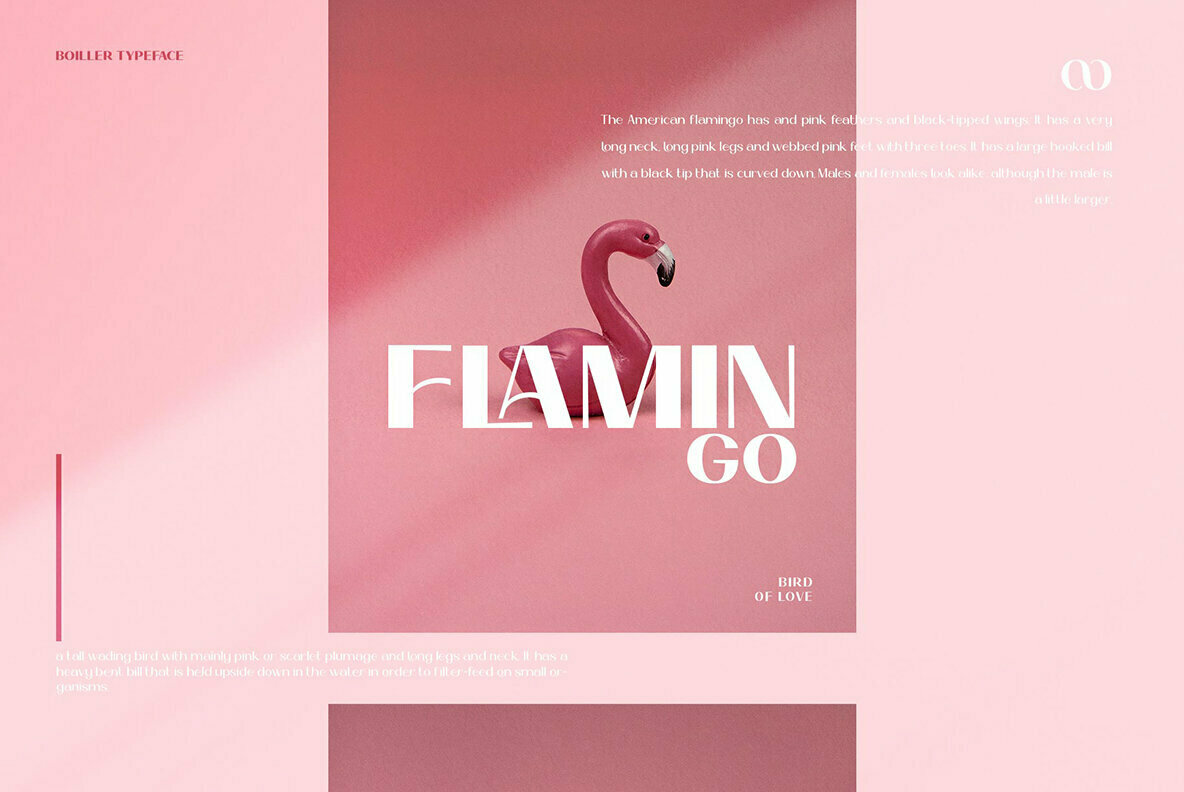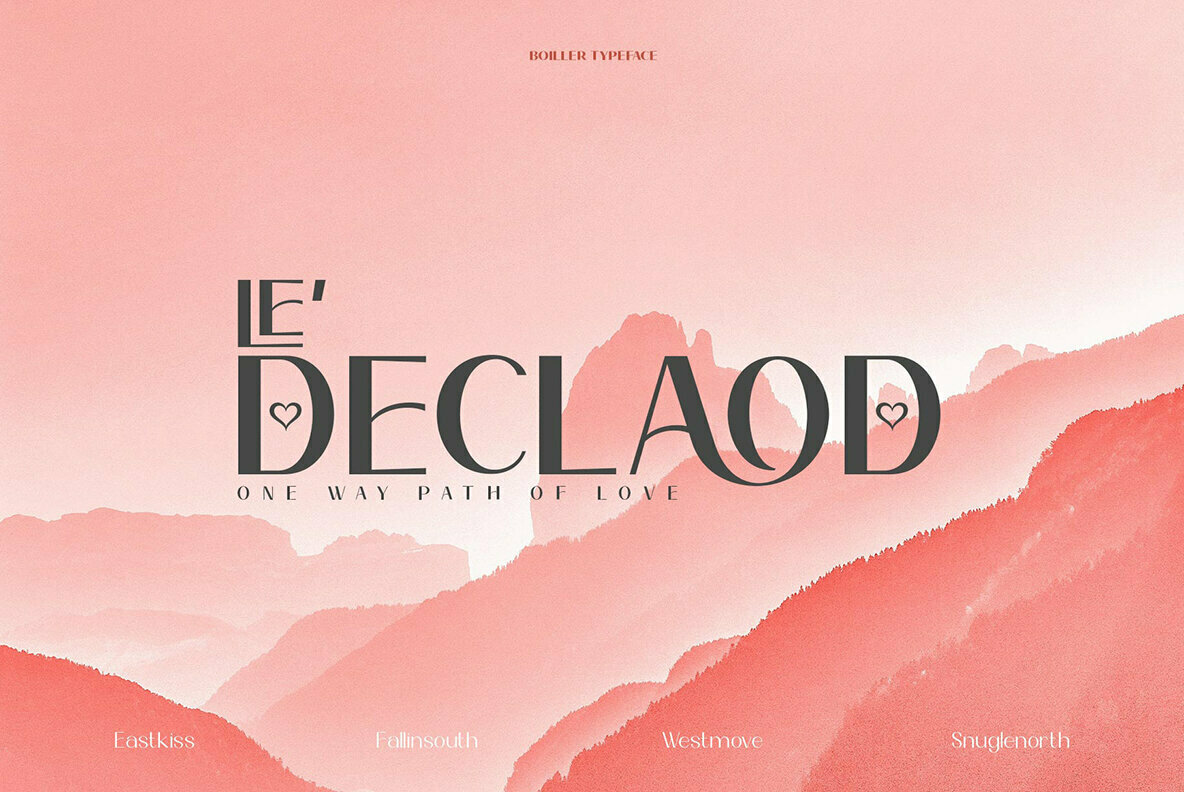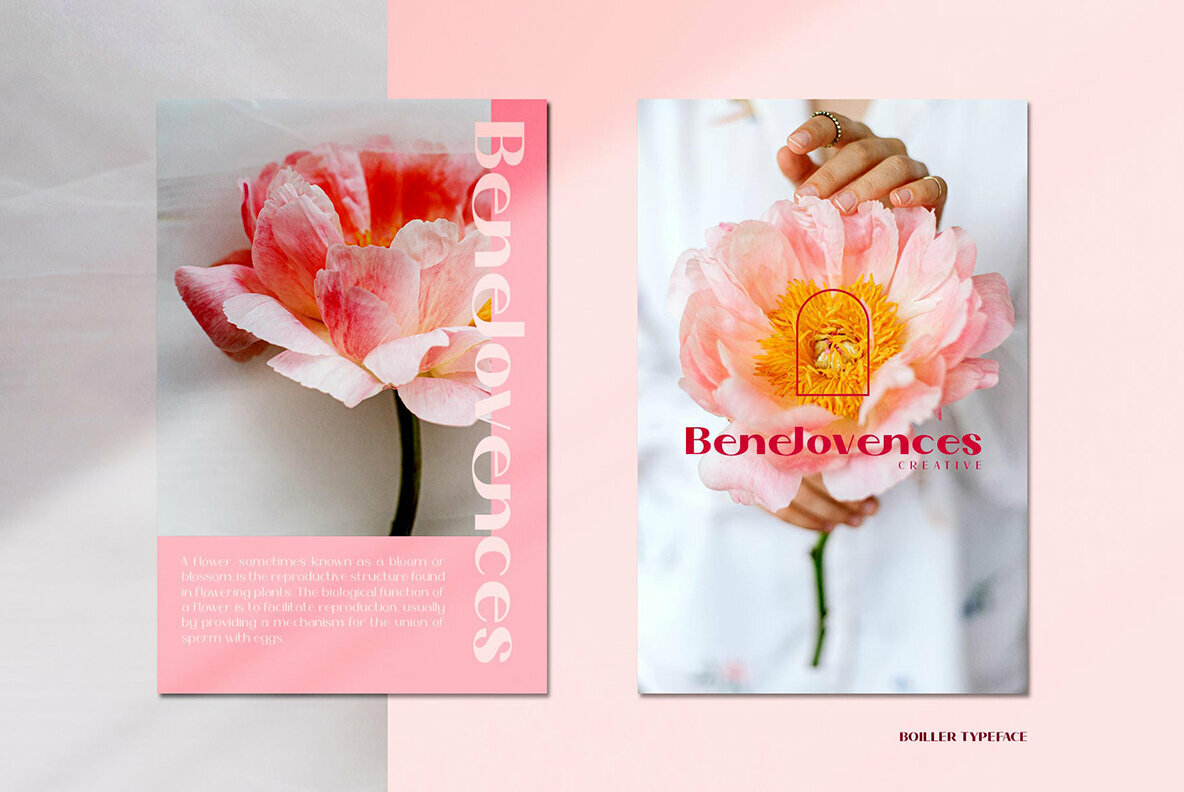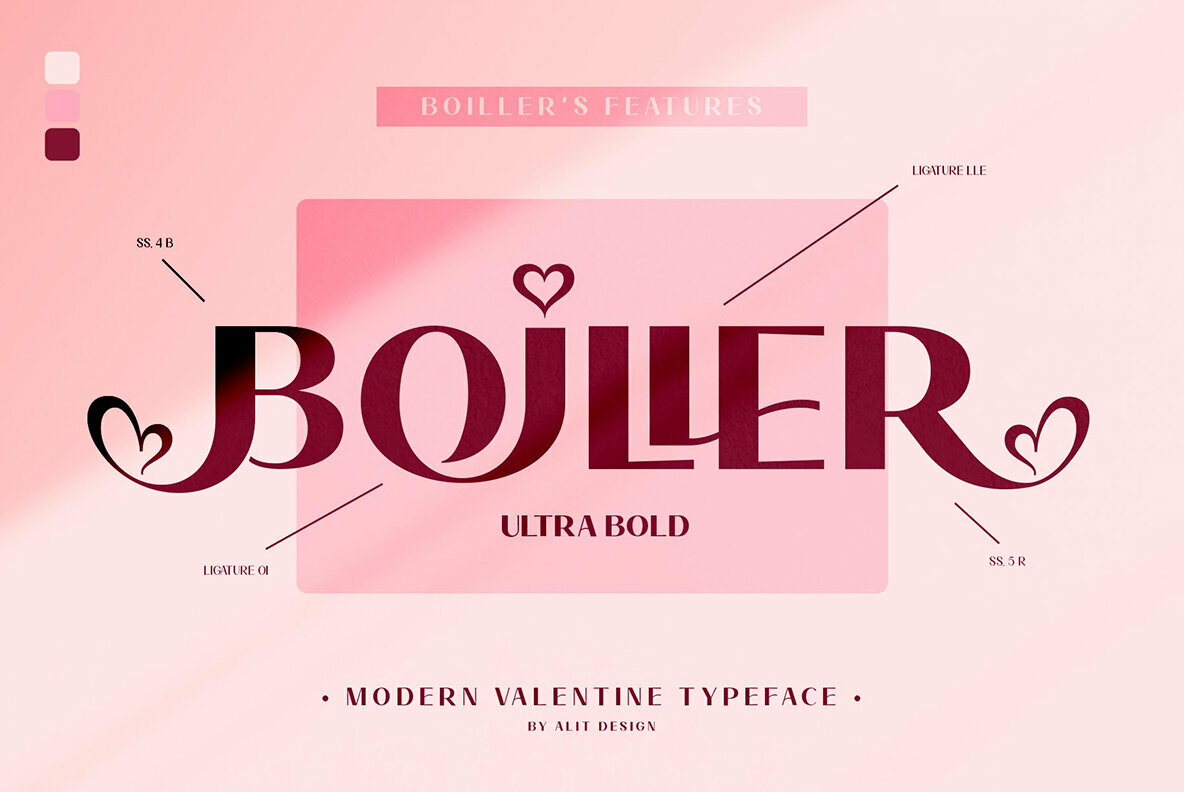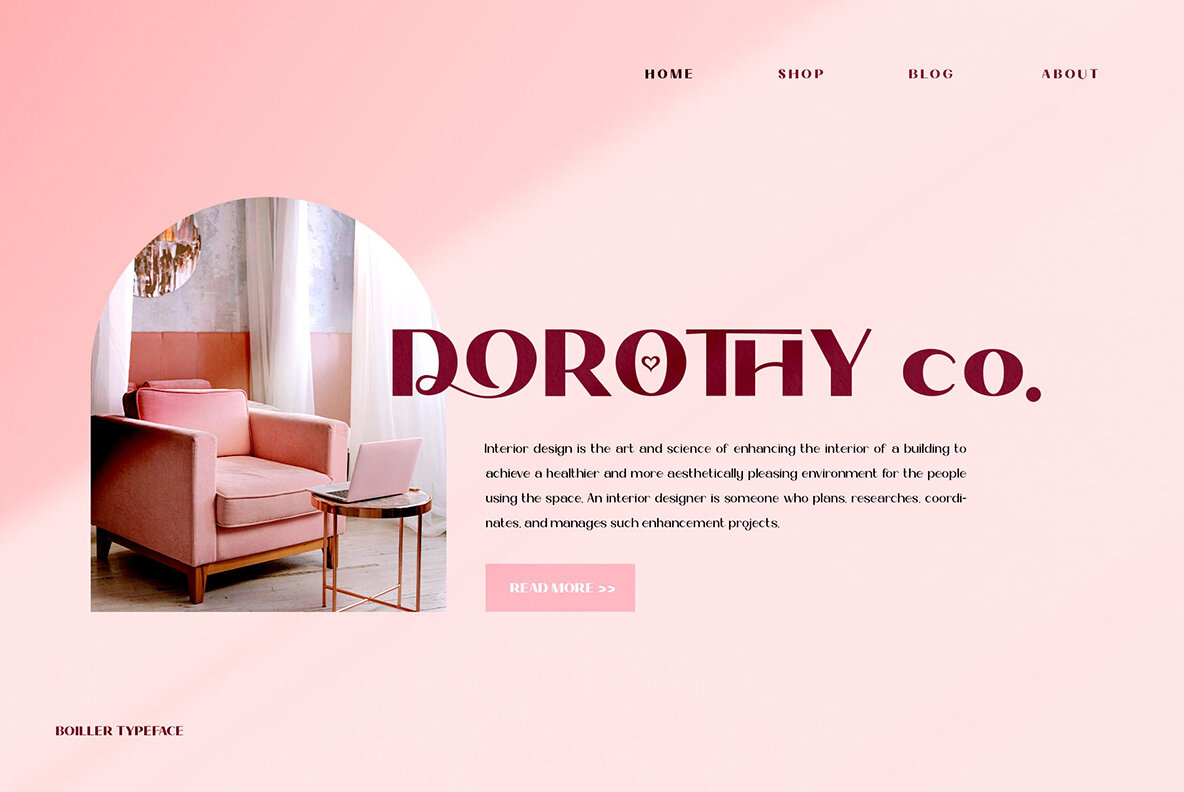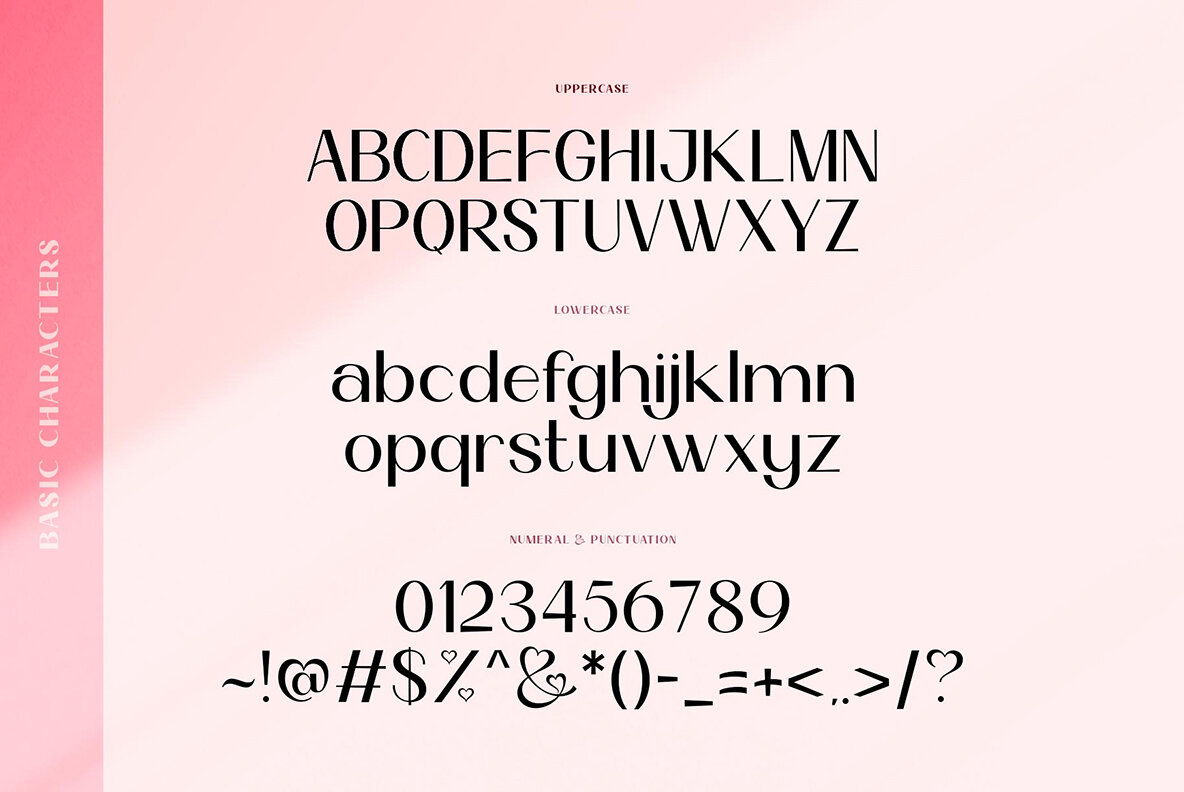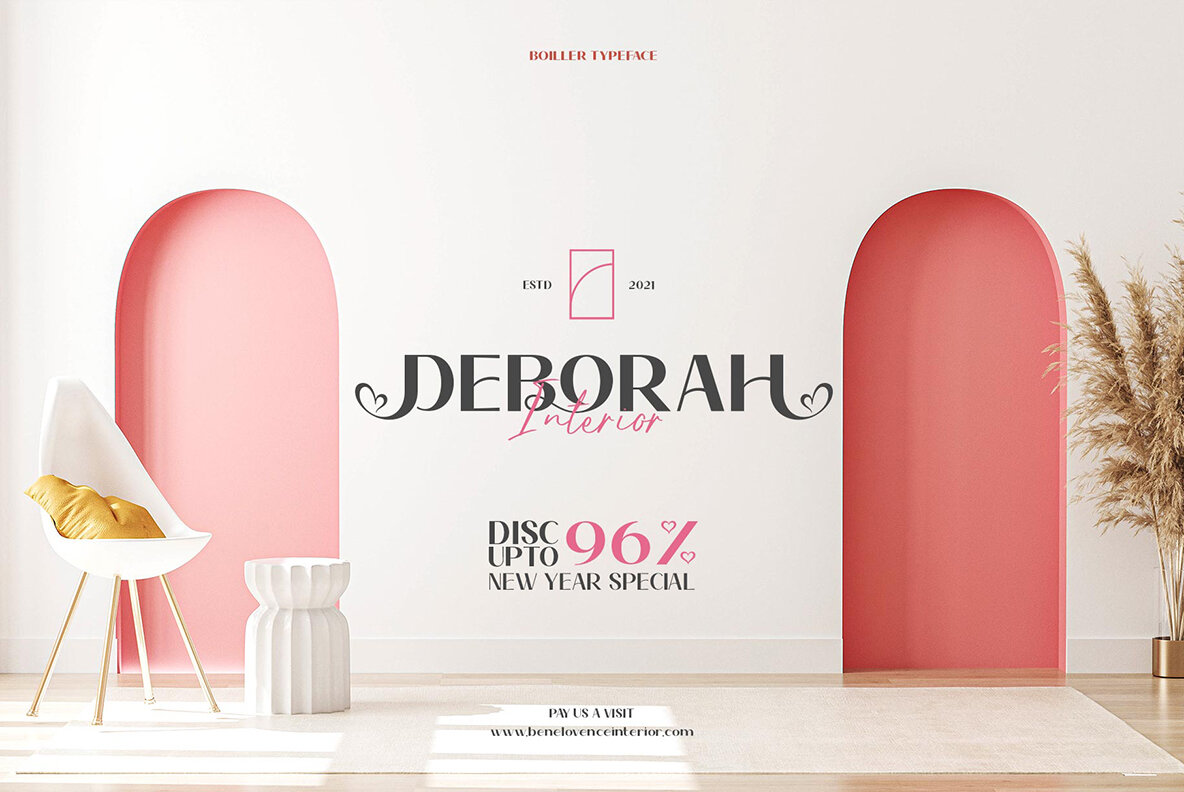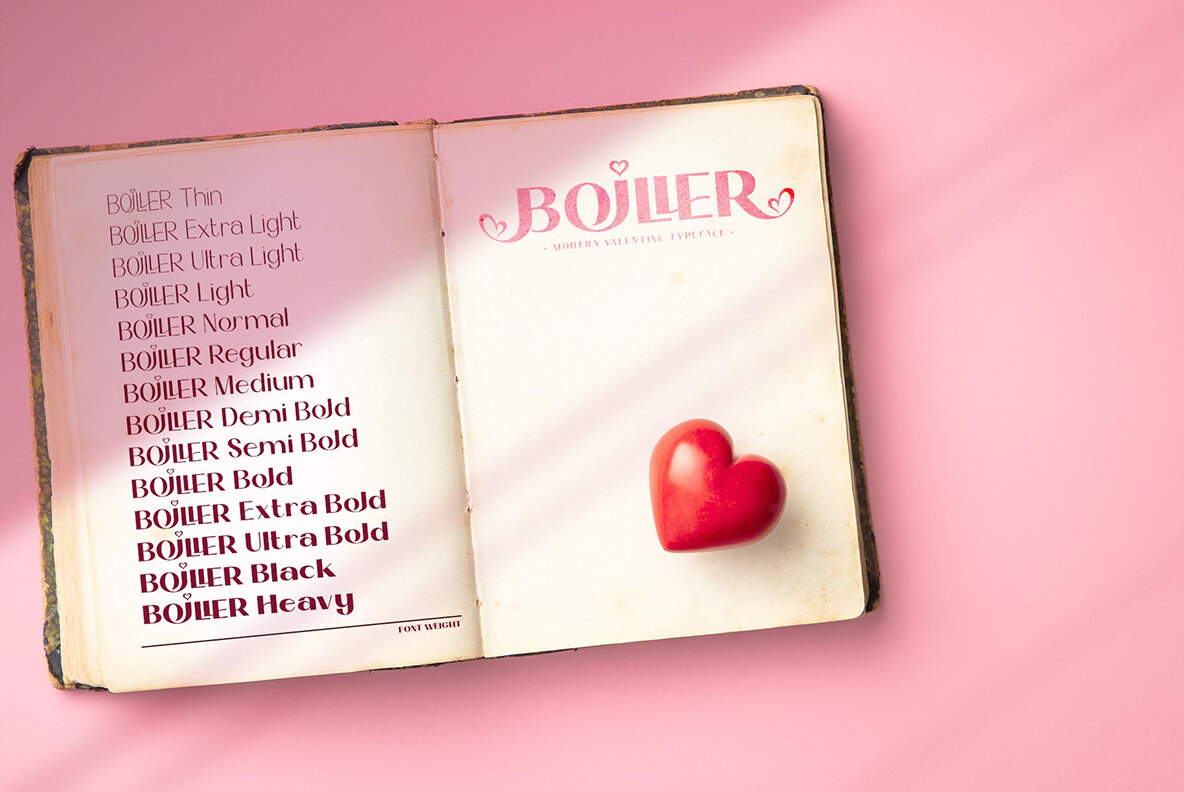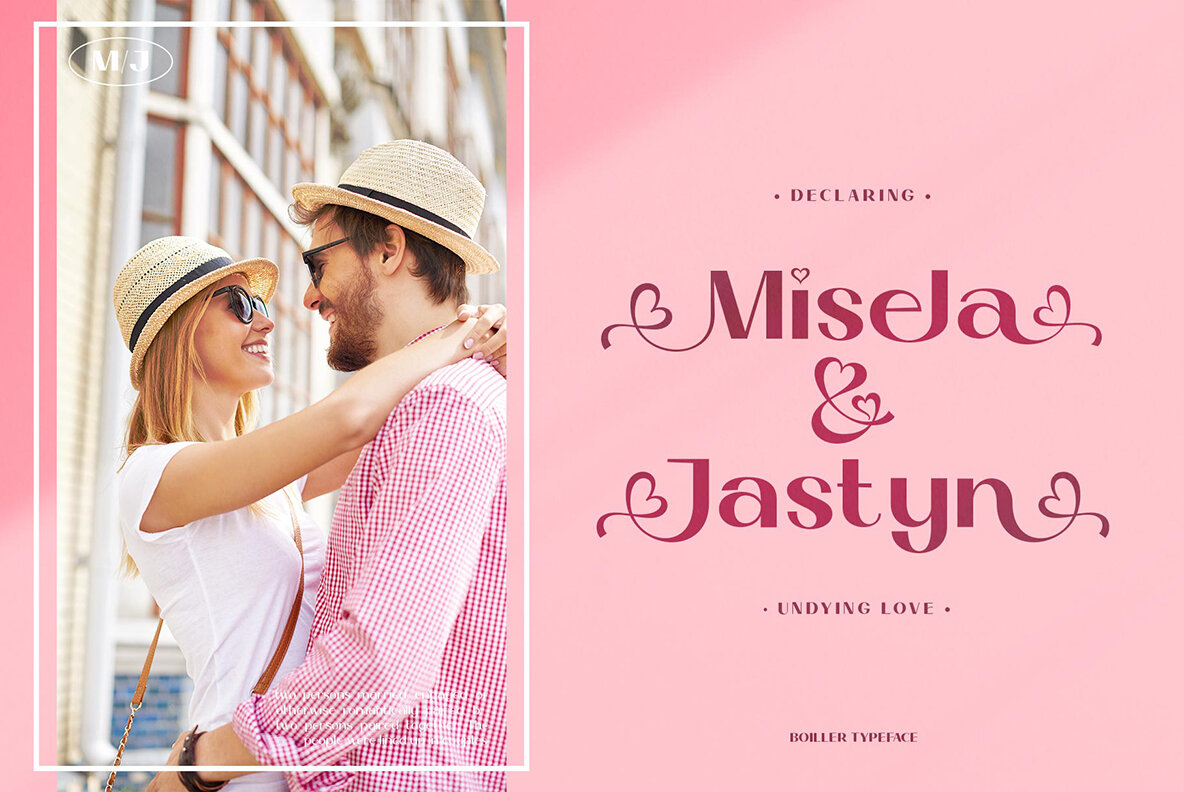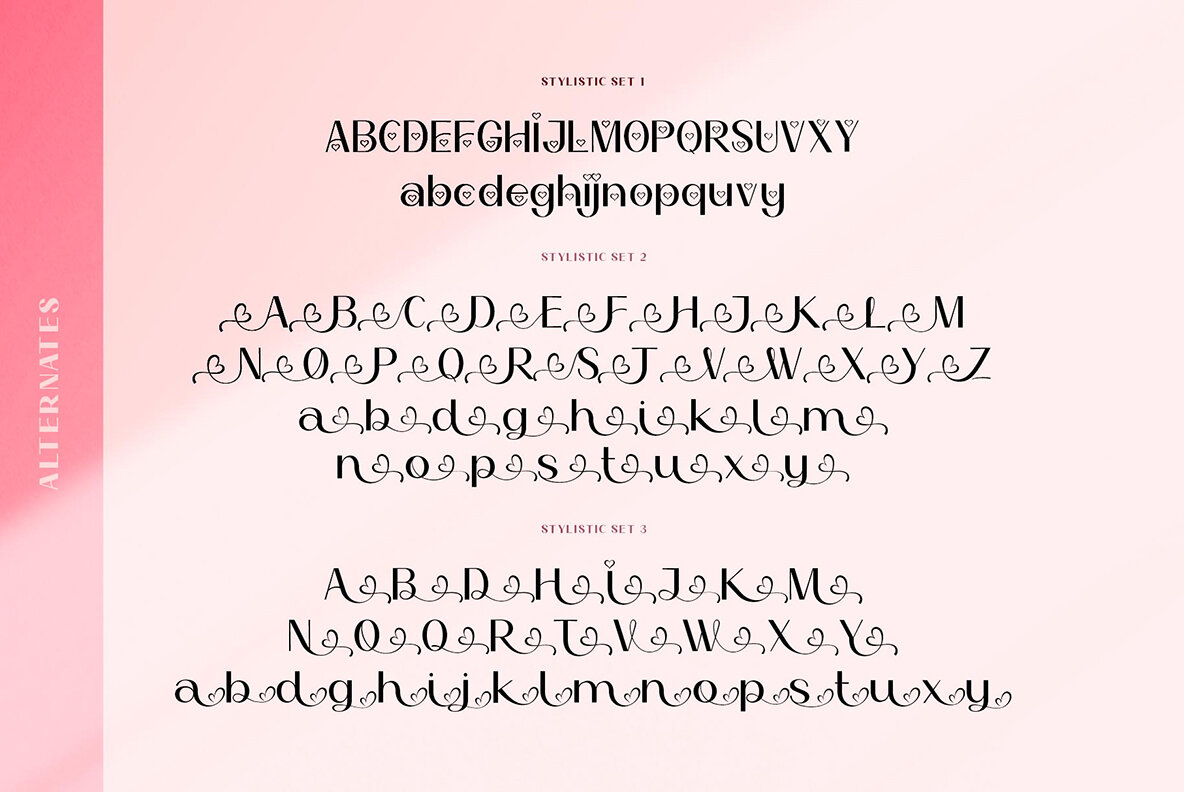
Boiller Font
Boiller is a sans serif font designed to bring elegance and romance to a variety of design projects. With 736 glyphs, it offers a rich palette of alternative characters, including swashes and ligatures. Boiller's capability to support multilingual projects makes it versatile for global use. The font family includes 14 styles, ranging from Thin to Heavy, adapting seamlessly from body text to header text, ensuring consistency and cohesion across your design pieces.Boiller: An Elegant Sans Serif with a Romantic Flair
Embrace Boiller for its flexibility and ability to enhance both simple and sophisticated design aesthetics.